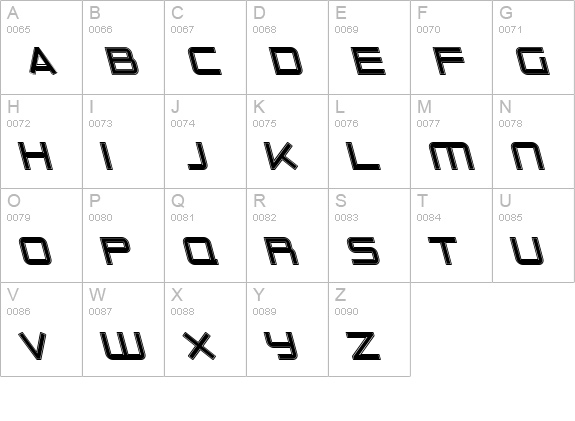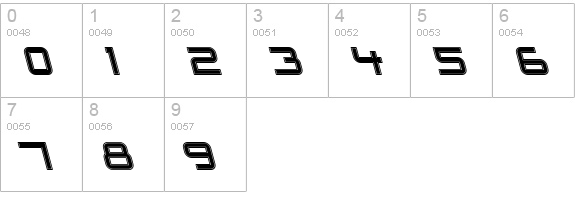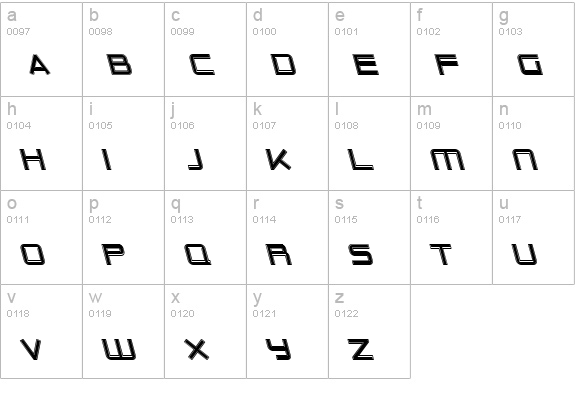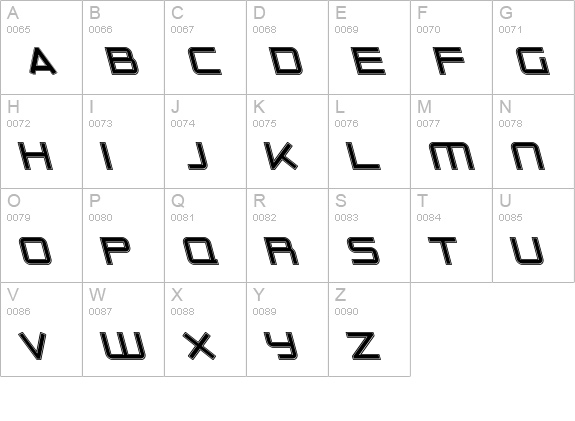
Outer Limits Italic is a distinctive, italic variant in the Outer typeface family \xE2\x80\x94 well suited to design and typography projects.
Outer Limits Italic font is a sleek and modern typeface that is perfect for adding a touch of sophistication to your designs. With its elegant and stylish letterforms, this font is ideal for projects that require a contemporary and edgy look. The italicized style of Outer Limits gives it a dynamic and striking appearance that will make your text stand out. And the best part? Outer Limits Italic font is available for free download at FontsMarket.com. This means you can easily access this stylish font and use it in your projects without any cost. Whether you're working on graphic design, branding, or any other creative project, Outer Limits Italic font will elevate your work and give it a professional and polished finish. Download it now and see how this font can take your designs to the next level.